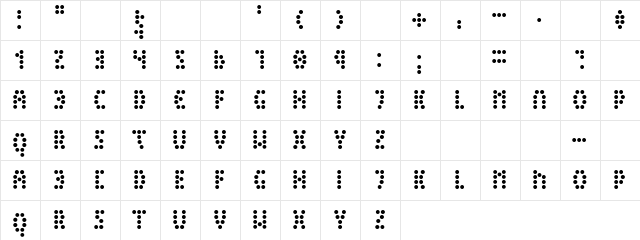
Peex Light Font Preview
Peex Light
Peex Light Font Details
Design Context for Peex Typeface
Peex is a composed and adaptable typeface that performs quietly and consistently across a wide range of design contexts. Its slender proportions lend an understated elegance to any composition.